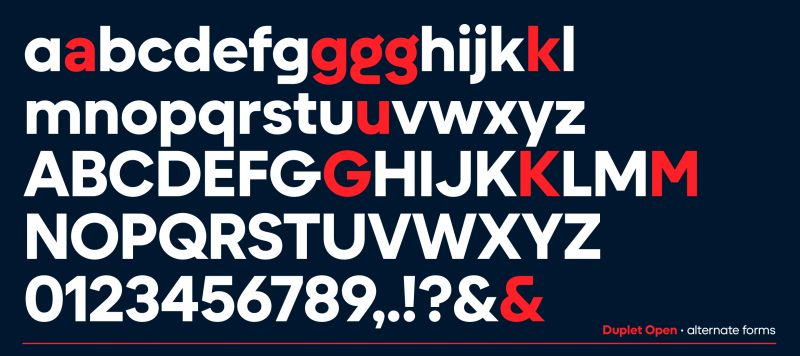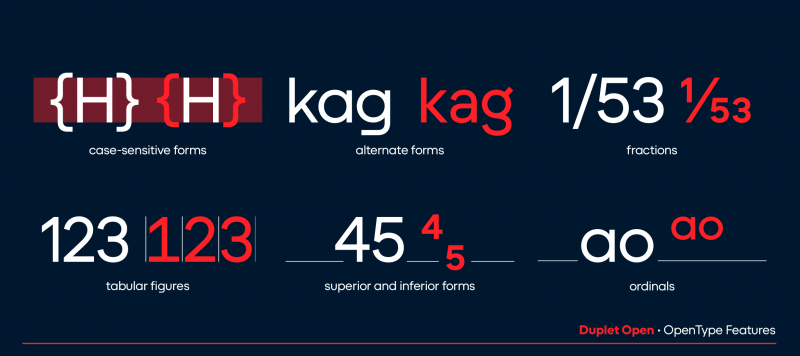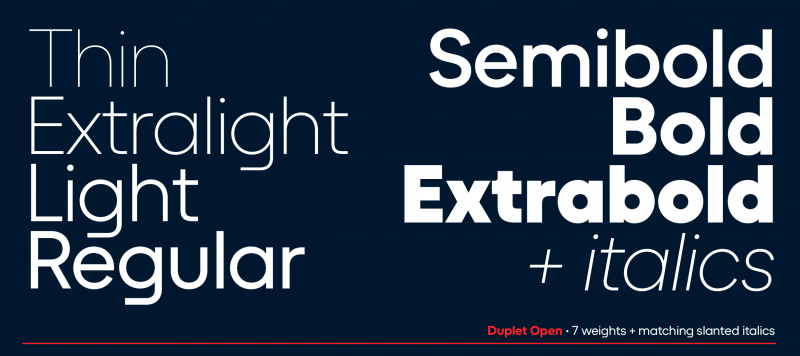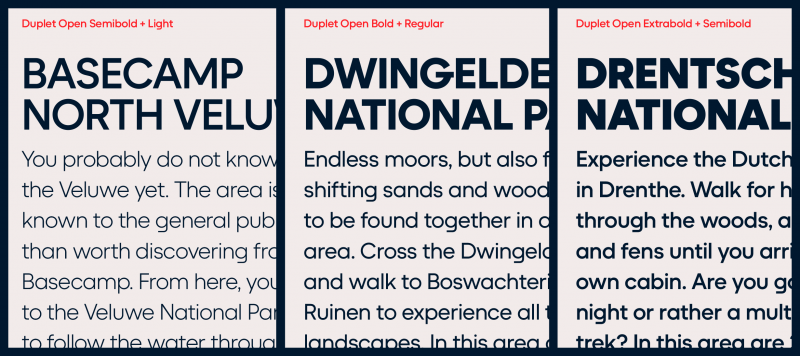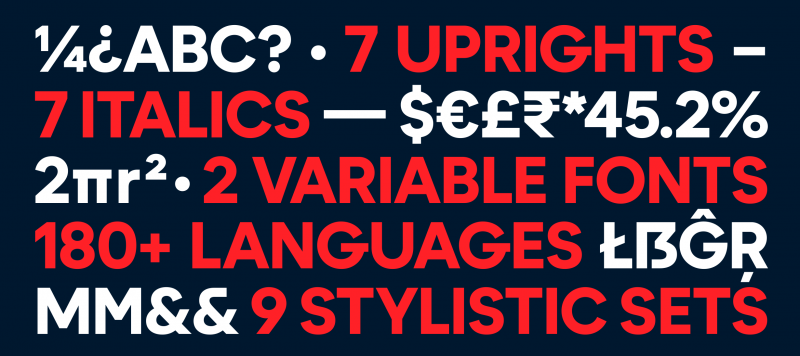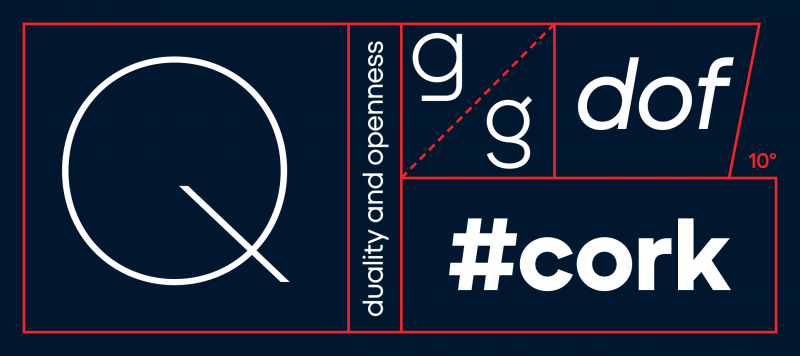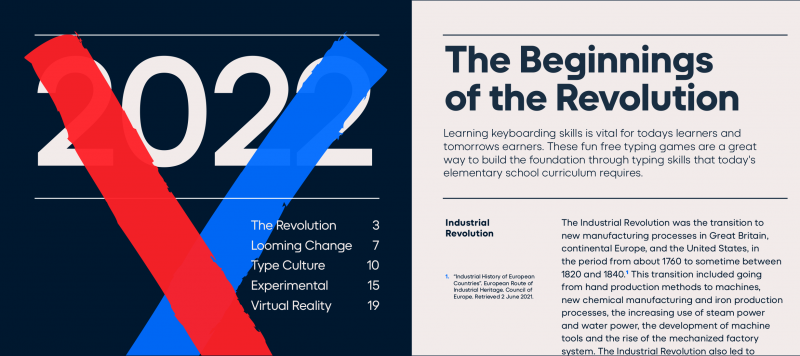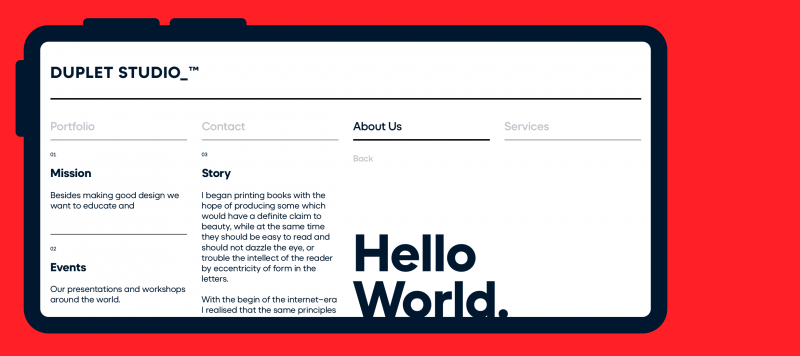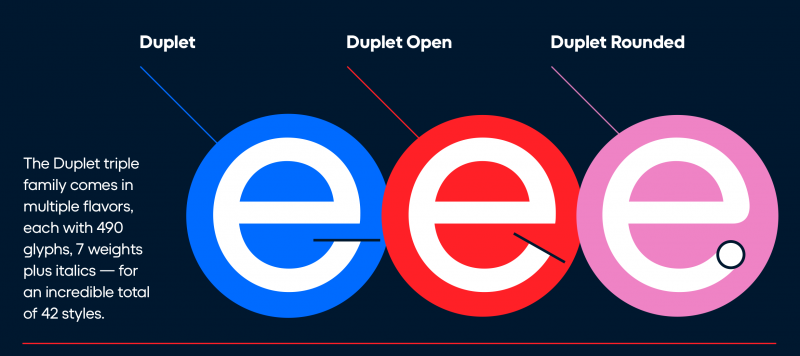
When you are looking for a typeface that can carry a tech message to readers, helps make communication easier and looks good, too – chances are high that you’ll select a geometric sans serif. These are the typefaces of today and tomorrow. From the headlines on news websites to the texts in apps and even company logos rendered large or small, geometric sans serifs are everywhere.
Since it is part of the Duplet superfamily, you can combine Duplet Open with its relatives: Duplet and Duplet Rounded. Each contains seven weights ranging from Thin through ExtraBold, all with companion italics. The fonts include more than 450 glyphs, covering all the European languages written with the Latin script.
Since the Duplet Open fonts are geometric, the round characters and round-parts of letters appear either as circles or slanted circular forms (like you see in the italics). Duplet Open’s letterforms are very low-contrast with strokes that seem even in thickness. On letters like ‘e’ and ‘s’, the strokes also end in diagonal shears rather than horizontals. That makes the letters’ counters more open. They render a little less dark and may even be slightly more legible at small sizes or on screen than ITF’s Duplet family.
The default form of the ‘a’ in each font is single-storey. The large round bowl drives Duplet Open’s inherent geometry home! But there is a double-storey ‘a’ as an OpenType alternate ‘a’. The default ‘g’ is also single-story, and its bottom stroke is flattened, giving it a streamlined, less-complicated look. Duplet Open’s fonts feature three more ‘g’ versions as alternate characters.
There are alternates for ‘k’, ‘u’, ‘G’, ‘K’, and ‘M’, as well as the ampersand (&). The character sets include case-sensitive forms, too — punctuation marks that are vertically repositioned and look better in all-caps texts. When it comes to numerals, both proportional and tabular lining figures are there, as well as fractions, superior numerals, and inferiors. Diana Ovezea and Rafał Buchner designed this typeface with great attention to detail.
Family Name Duplet Open
Designer(s) Diana Ovezea, Rafał Buchner
Classification Sans